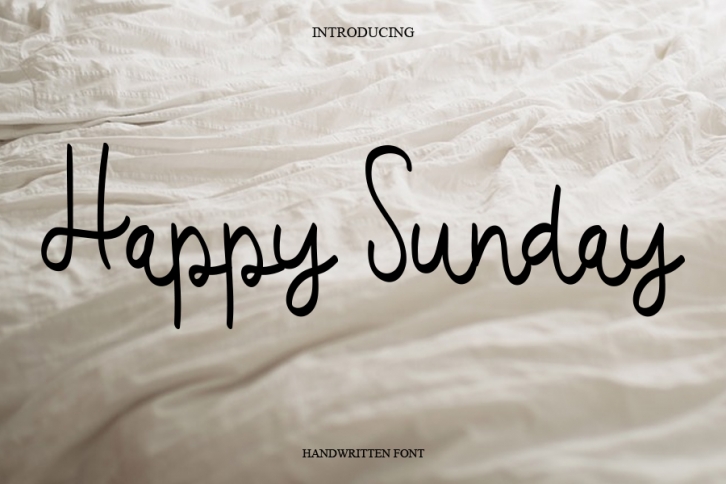
Happy Sunday is a sleek and elegant handwritten font. With natural-looking letters and a nice sleek style, this gorgeous typeface is suitable for any creative project that requires a handwritten touch.